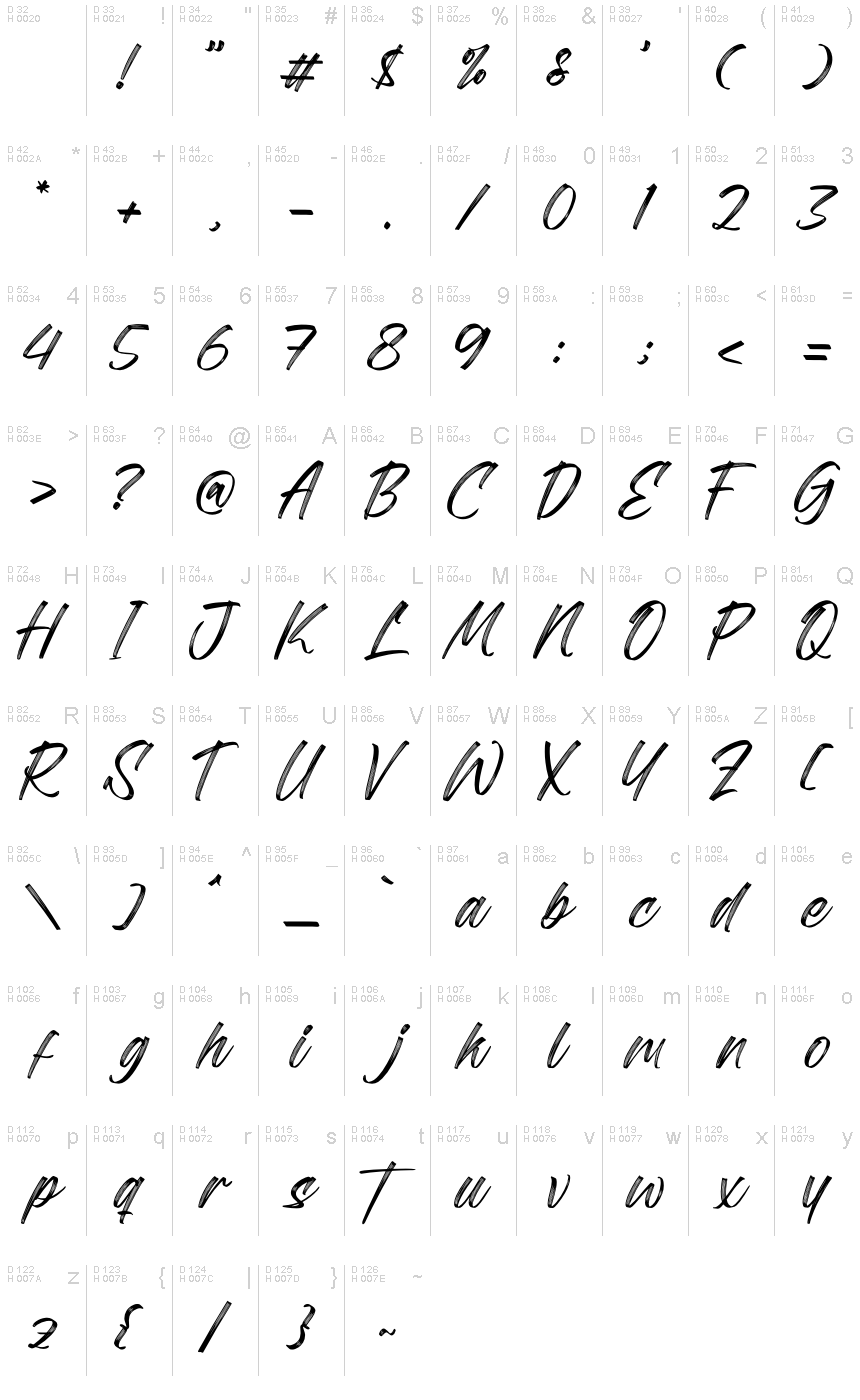
Suithame, crafted by the meticulous hands of Letterena Studios, radiates an artistic flair with its dynamic brush style. This condensed font exudes a sleek elegance that captivates at first glance. Each stroke suggests a harmonious blend of energy and sophistication, making it perfect for designs that require a touch of refinement paired with vivid expressiveness.
Ideal for branding, headlines, and creative displays, Suithame brings a compelling visual appeal to any project. Its striking personality enhances logos, invitations, and promotional materials effortlessly. Embrace Suithame to elevate your design work with its unique charisma and condensed artistry.